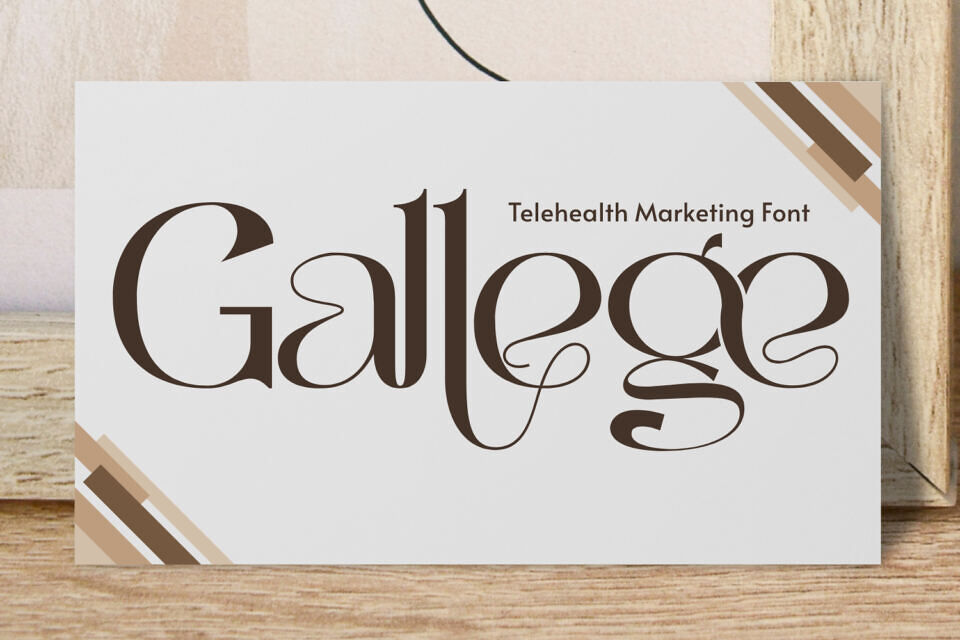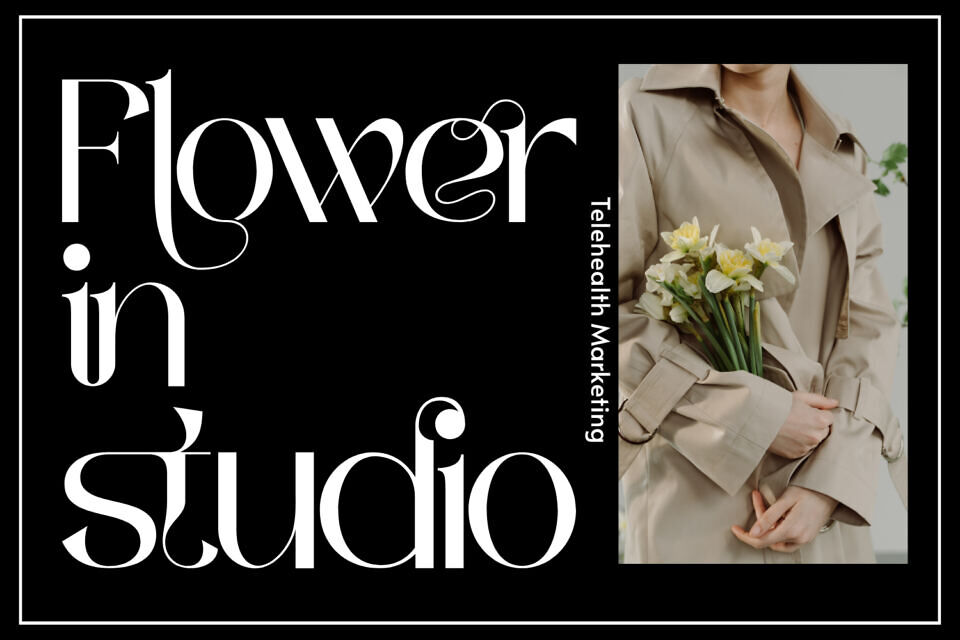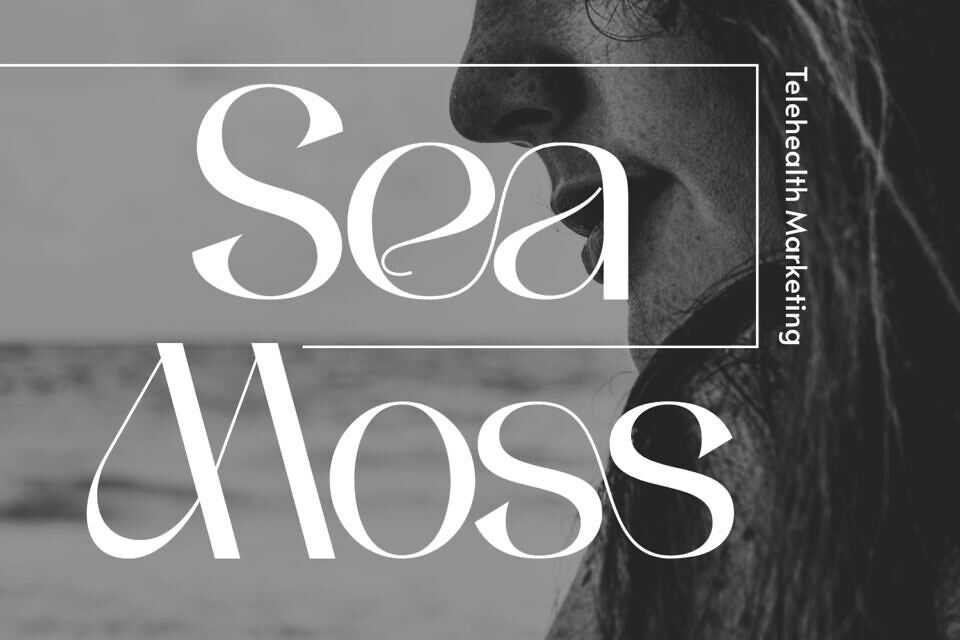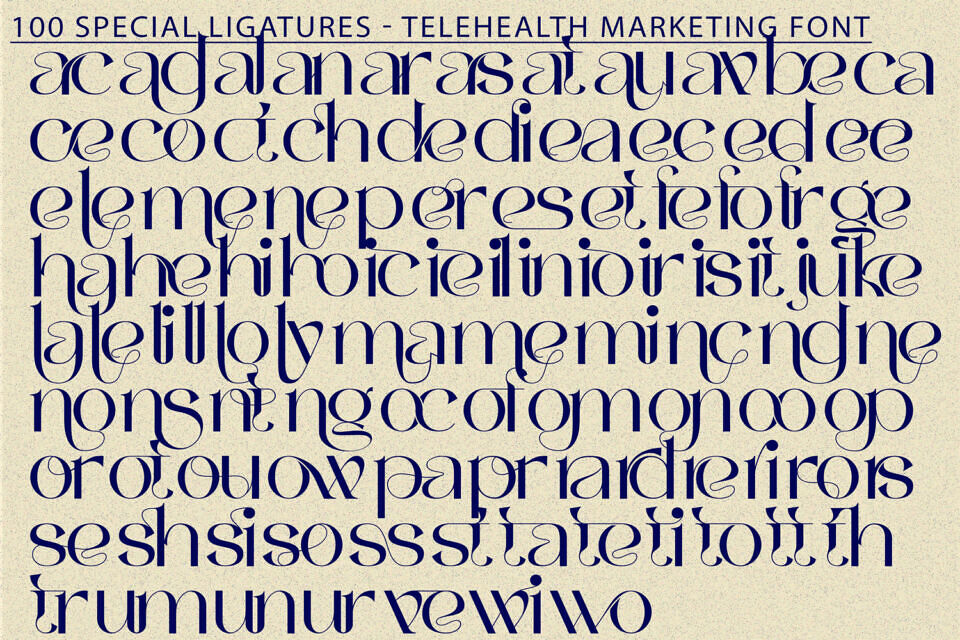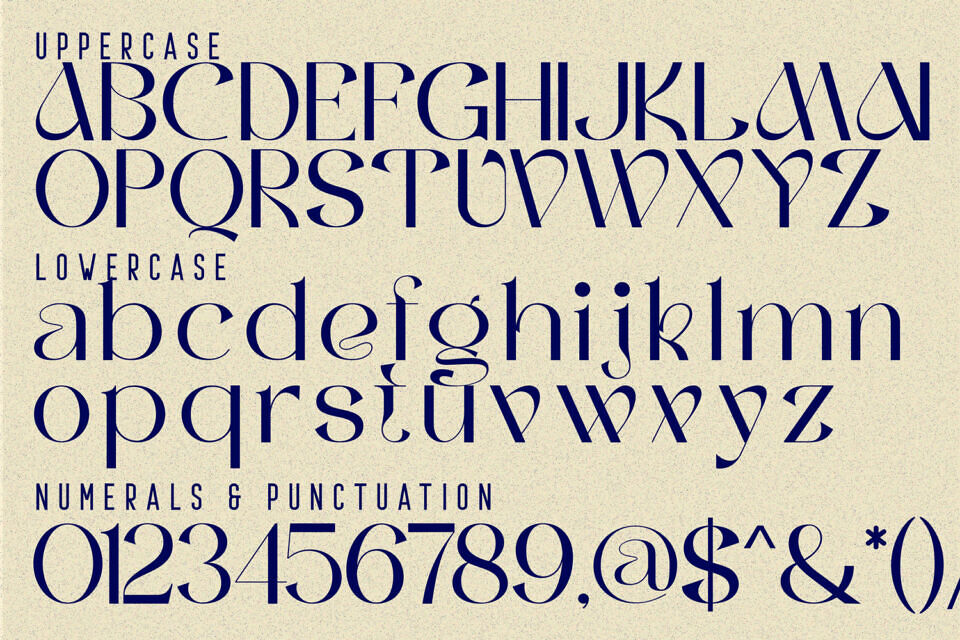
Telehealth Marketing Font
Telehealth Marketing Font is an elegant curved Sans-serif display font defined by graceful strokes, flowing swashes, and refined decorative details. Each character features a harmonious blend of sharp serif precision and fluid calligraphic motion, creating a captivating rhythm throughout the typography.
Its extended curves, artistic loops, and high-contrast forms make it perfect for luxury branding, editorial layouts, fashion campaigns, beauty packaging, wedding invitations, and expressive headline design. Designed to bring sophistication and visual poetry to your compositions, Telehealth Marketing transforms ordinary text into a striking artistic statement.